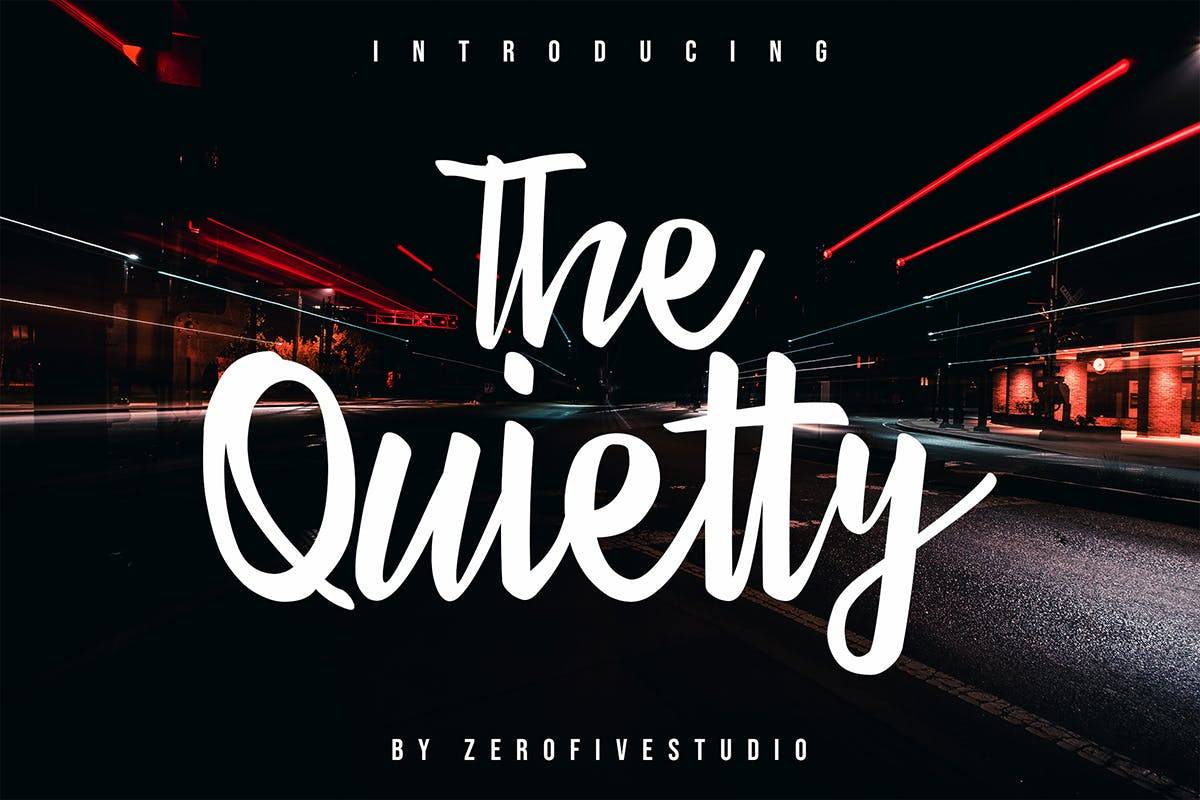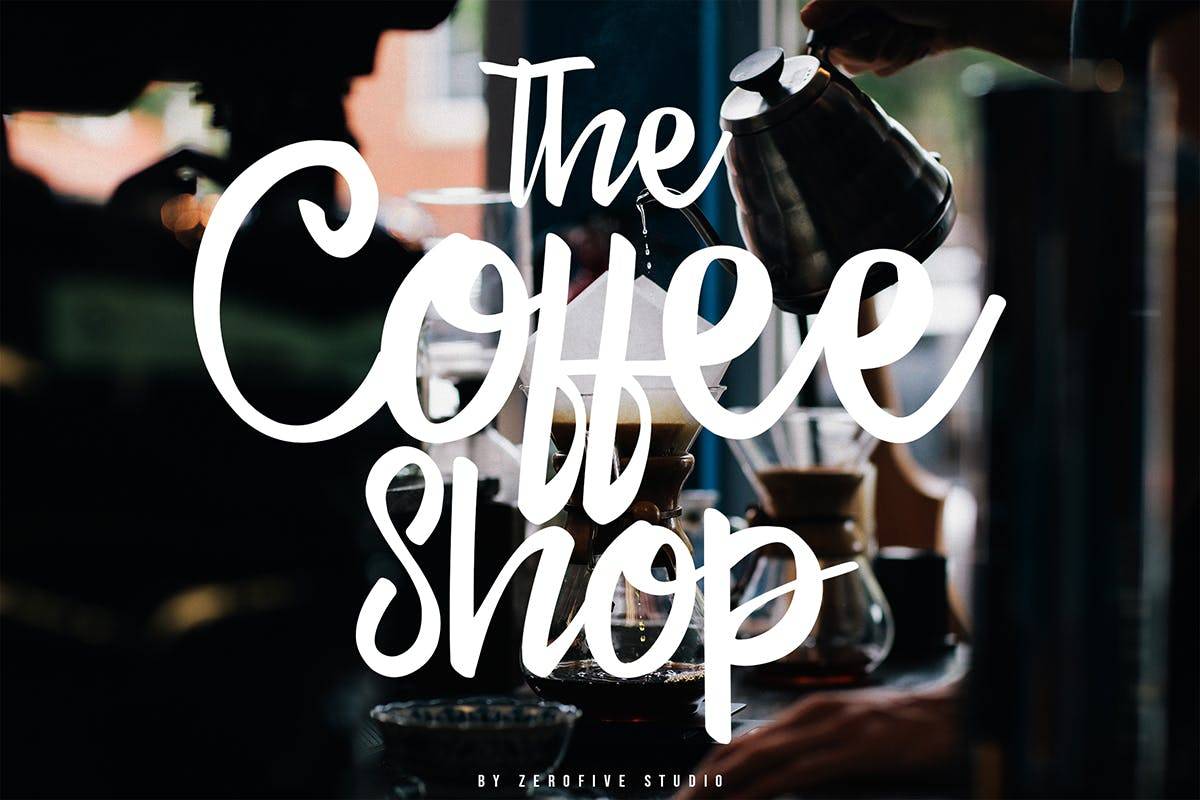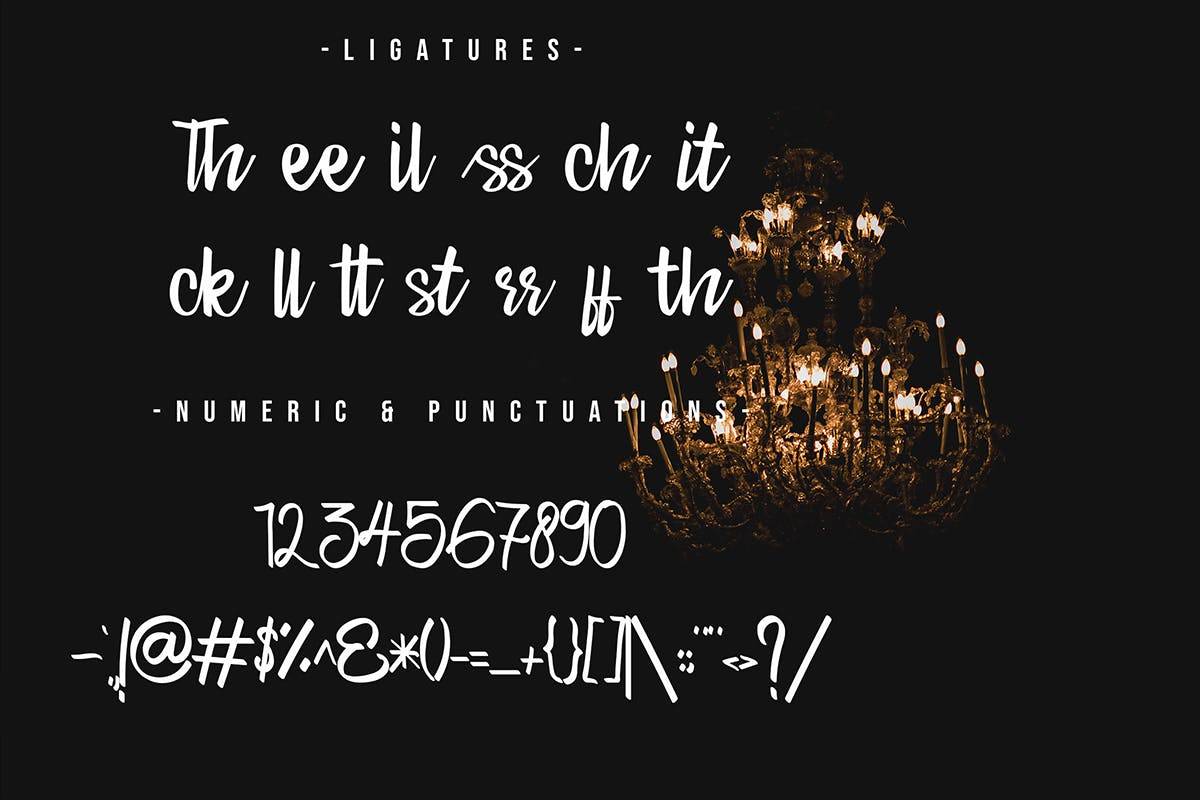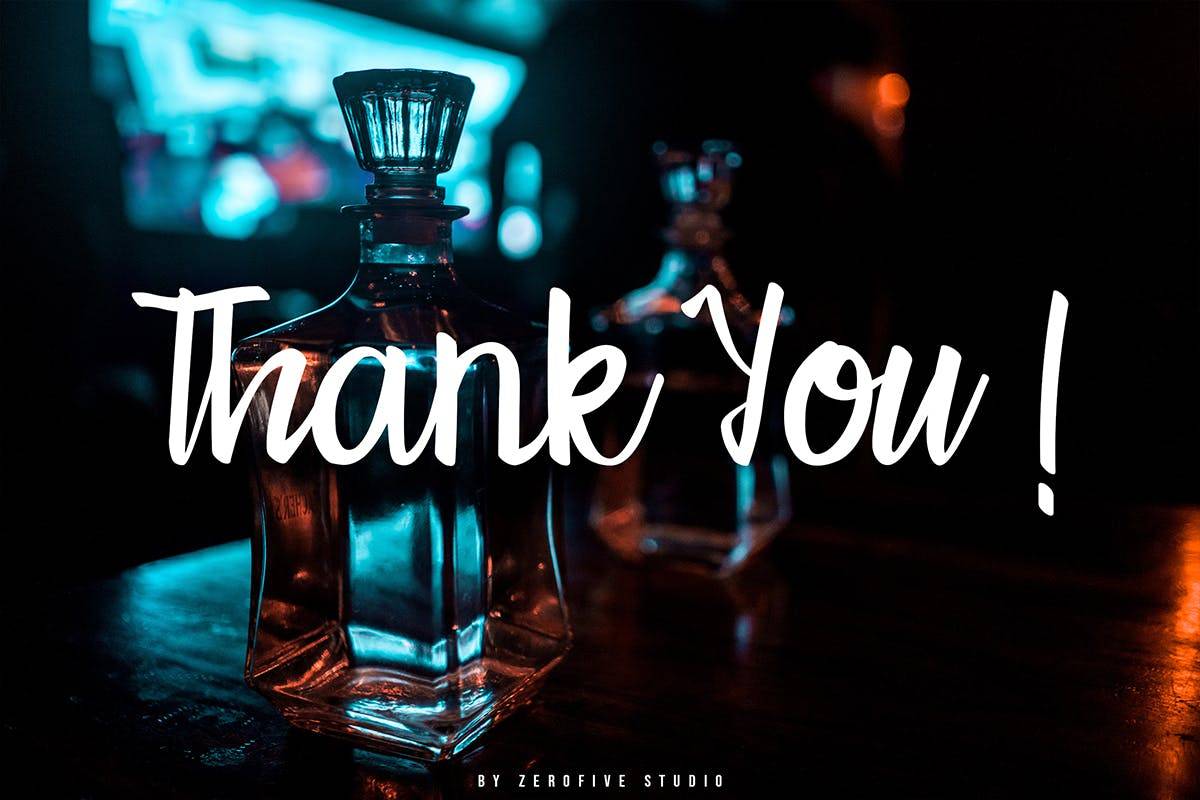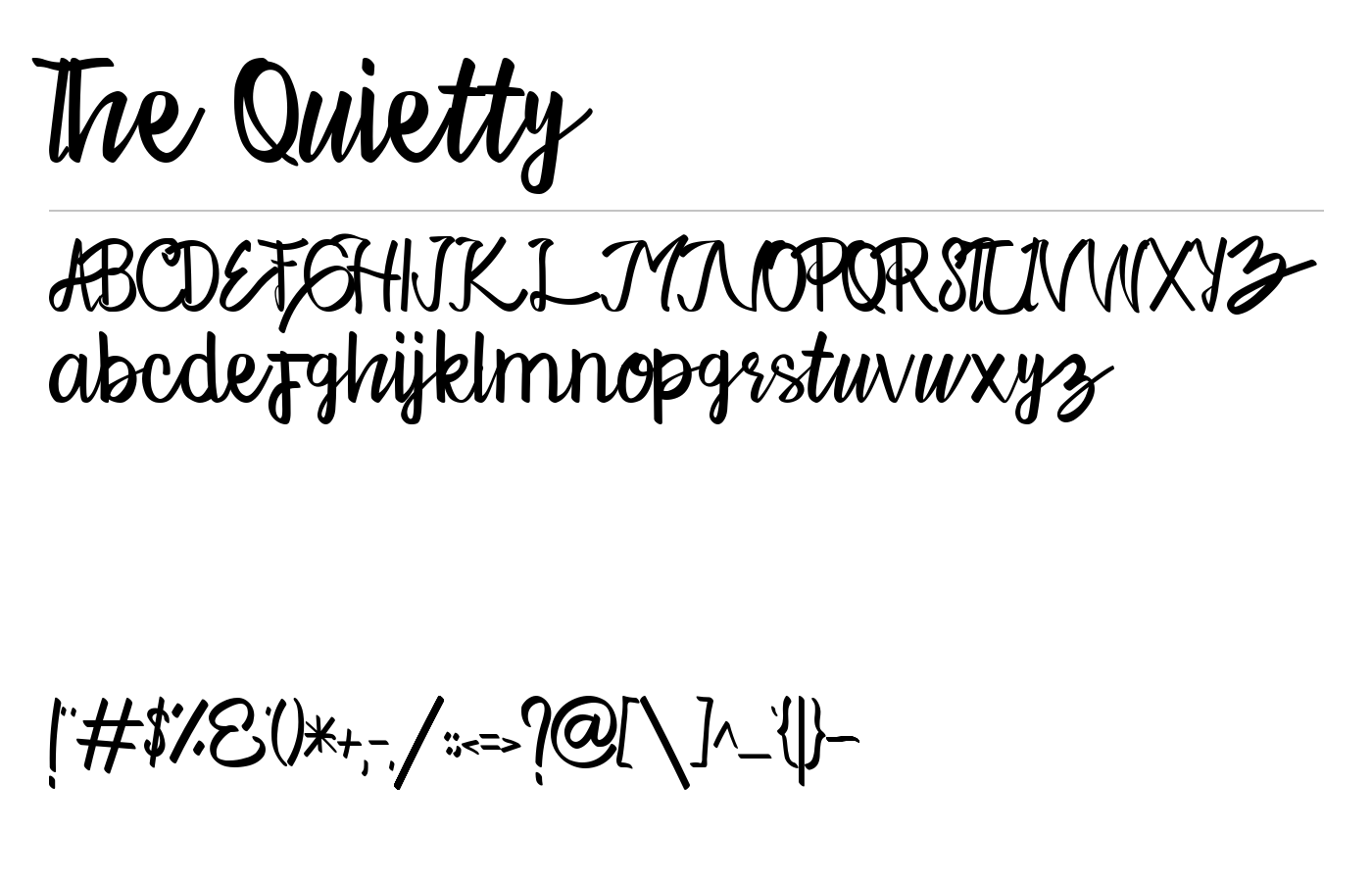
The Quietty Script Font is a playful and expressive handwritten typeface with a casual yet refined feel. Its lively, slightly irregular letterforms feature varying stroke widths, giving it a natural, artistic touch that works beautifully for creative projects, invitations, and branding that seeks a friendly and personal vibe. Perfect for adding charm and individuality, this font suits logos, posters, and headlines where a warm, informal elegance is desired.
The Quietty Script Font
About The Quietty Script Font
| Font family | The Quietty Script Font |
| Designer | zerofivestudio |